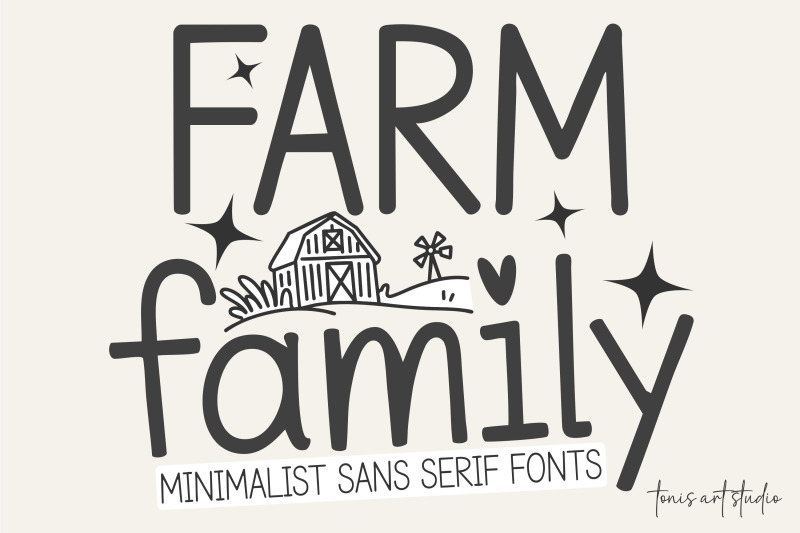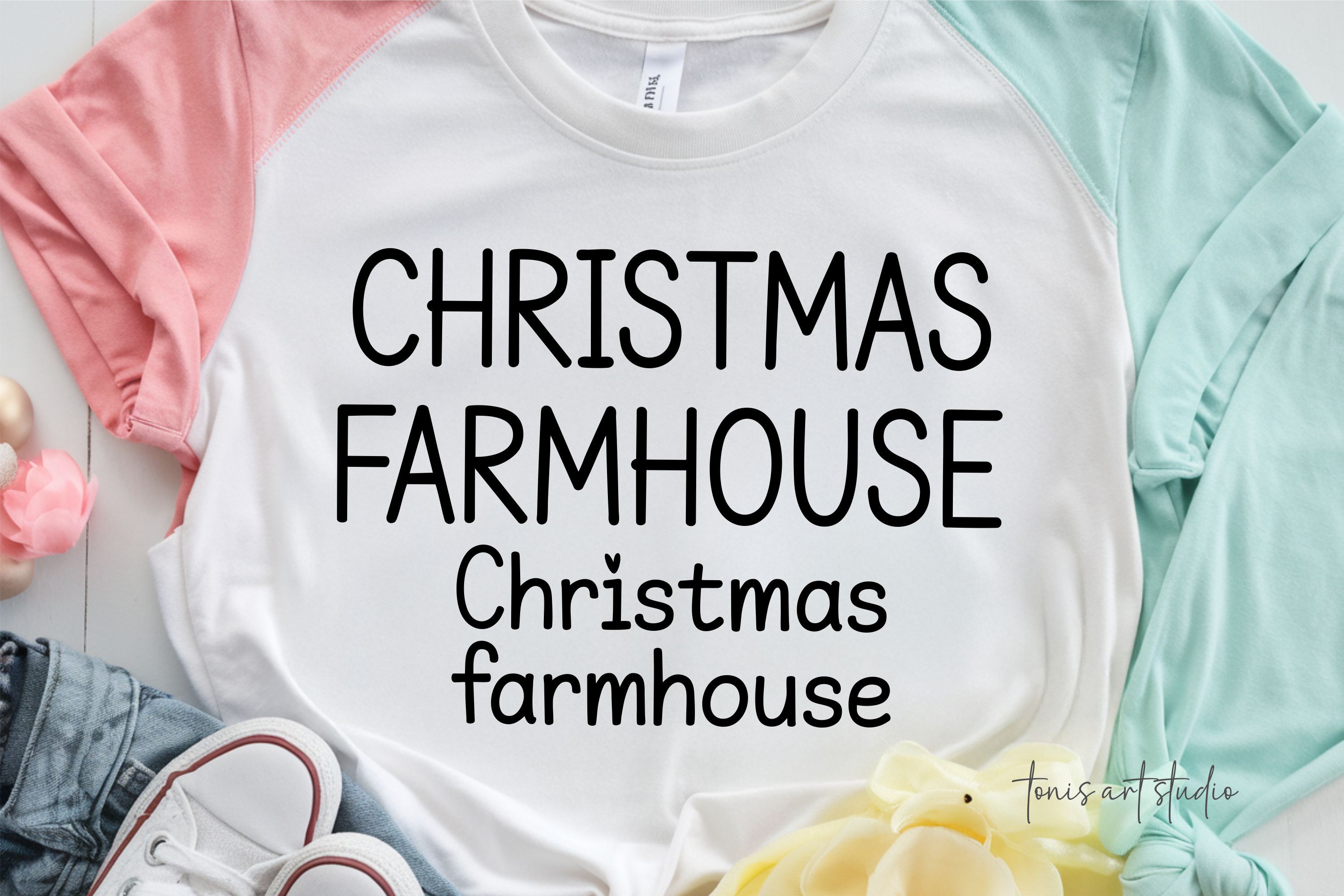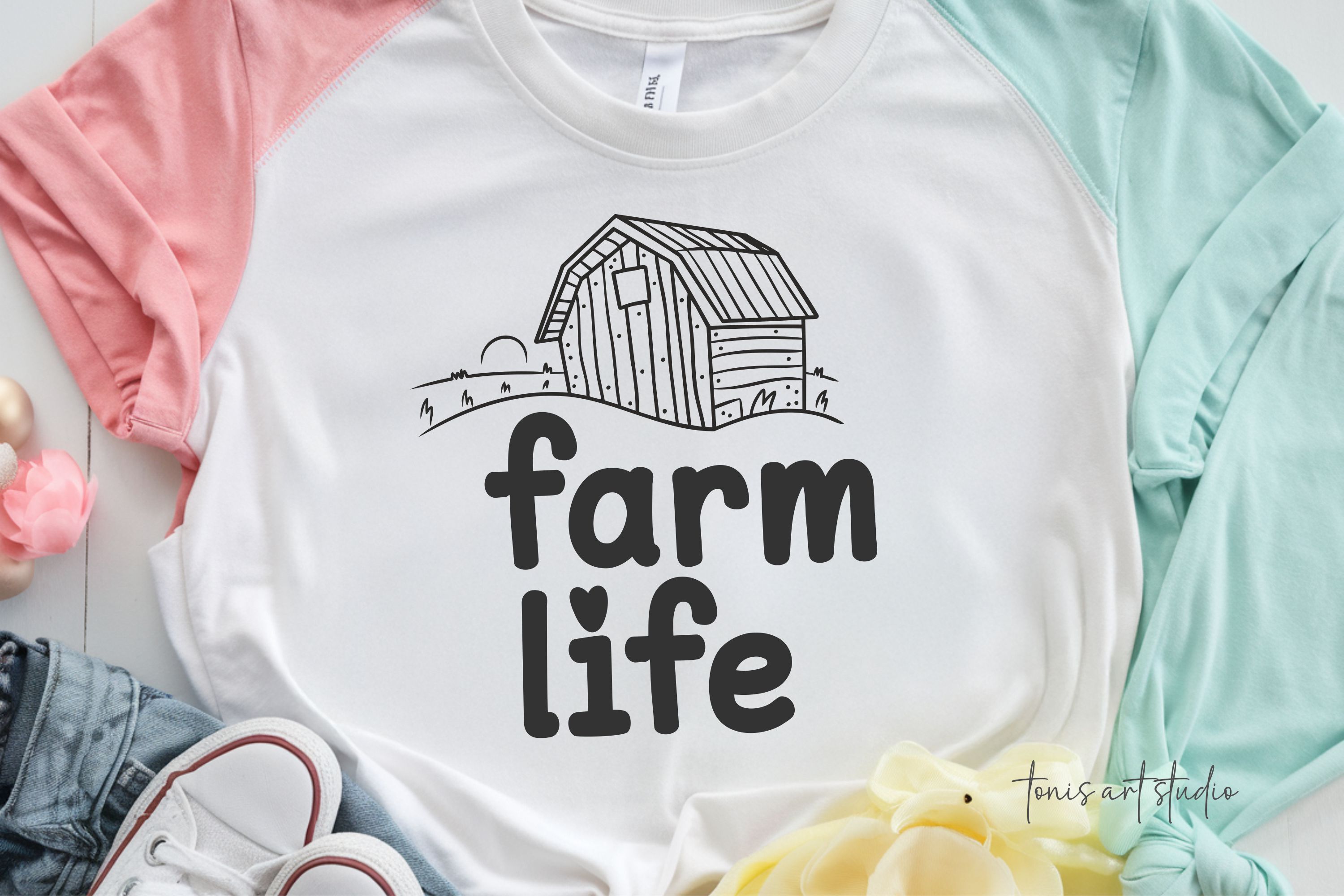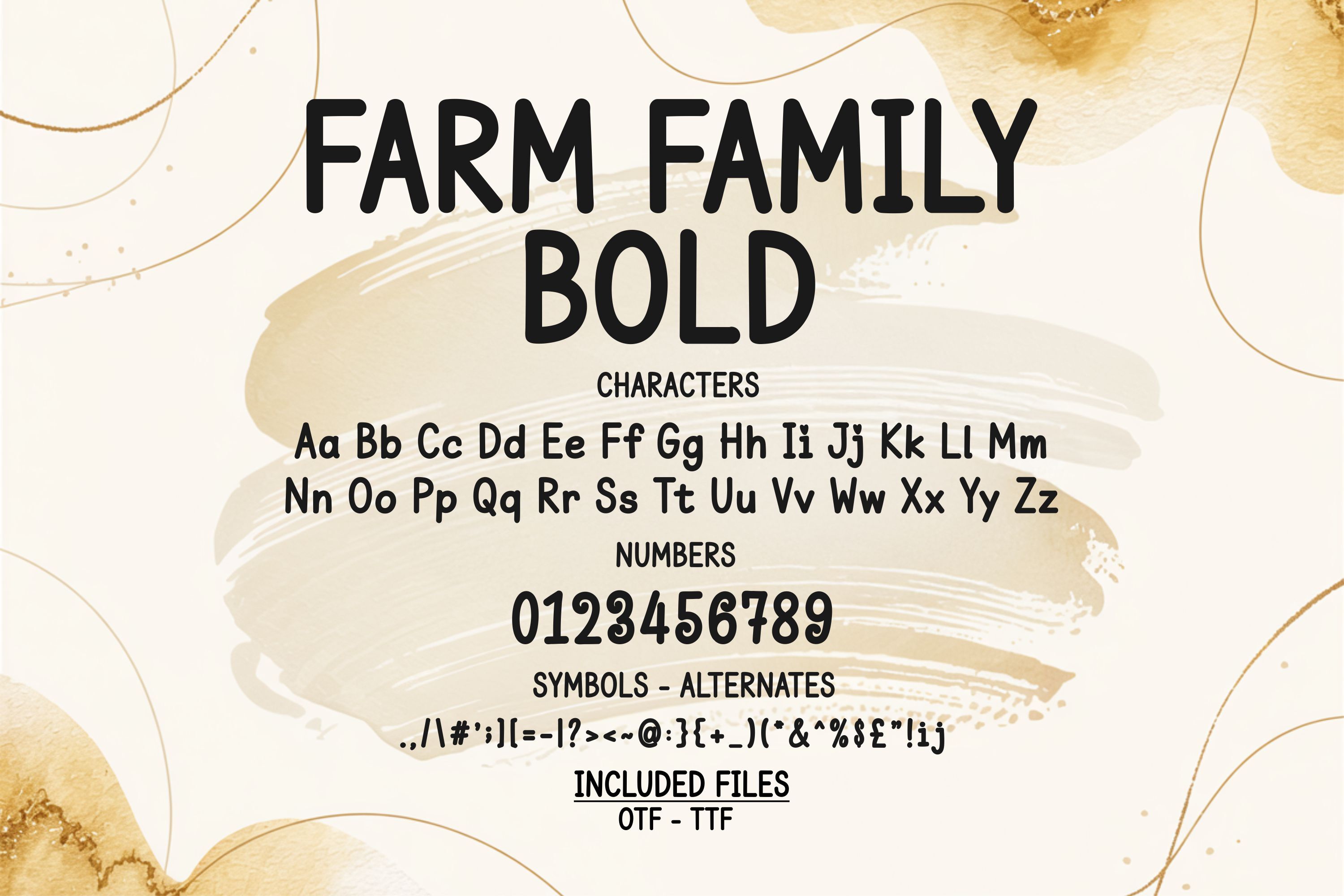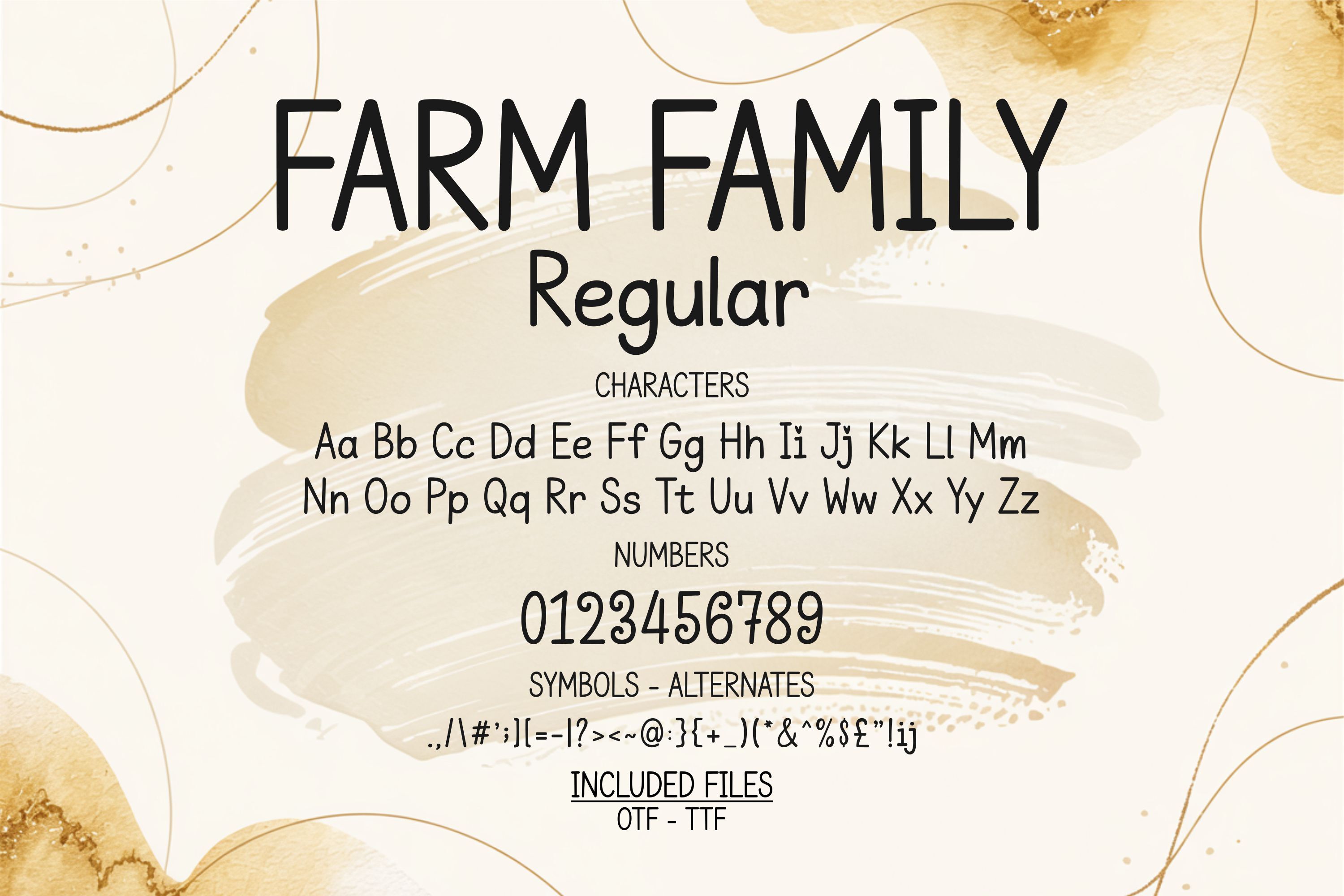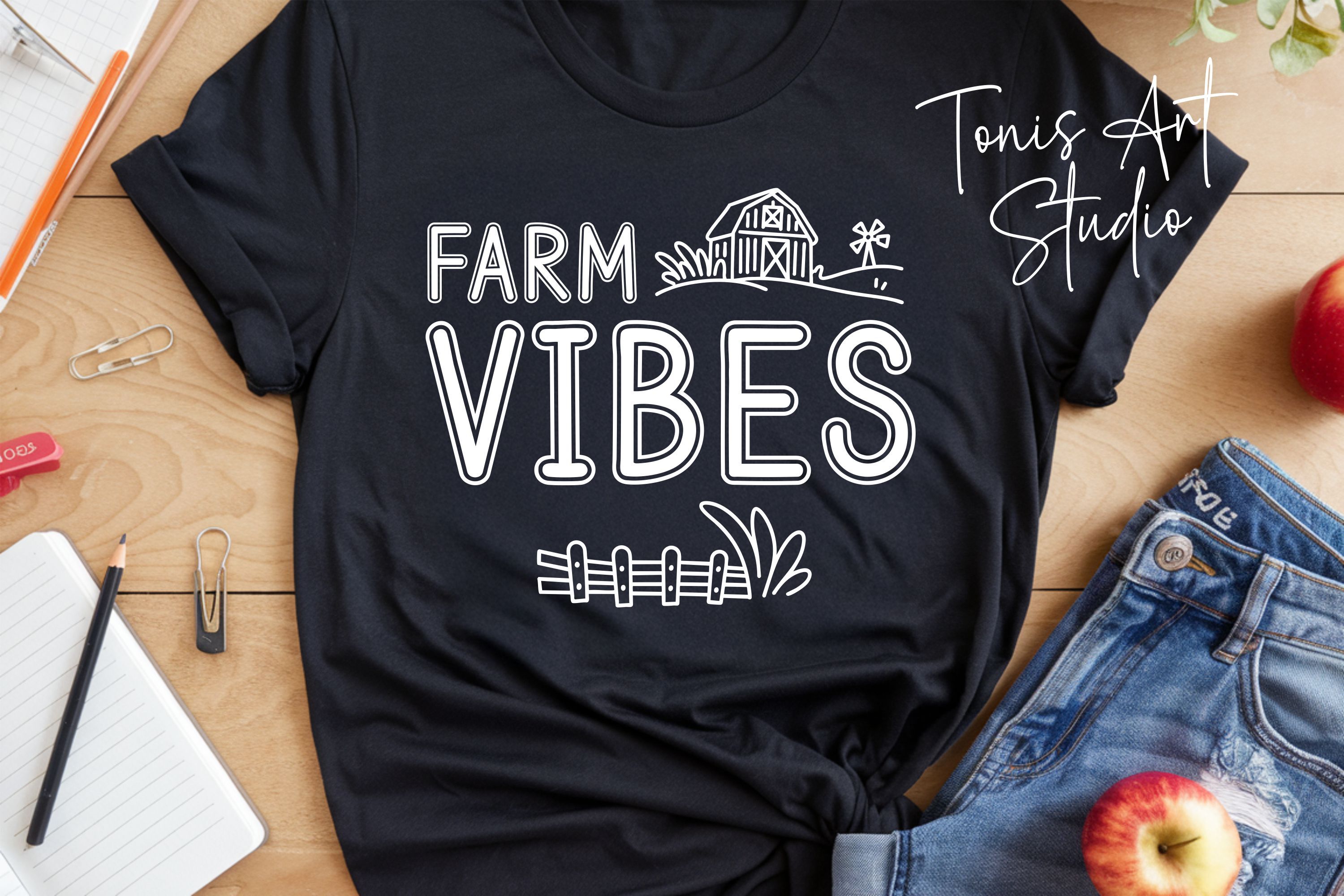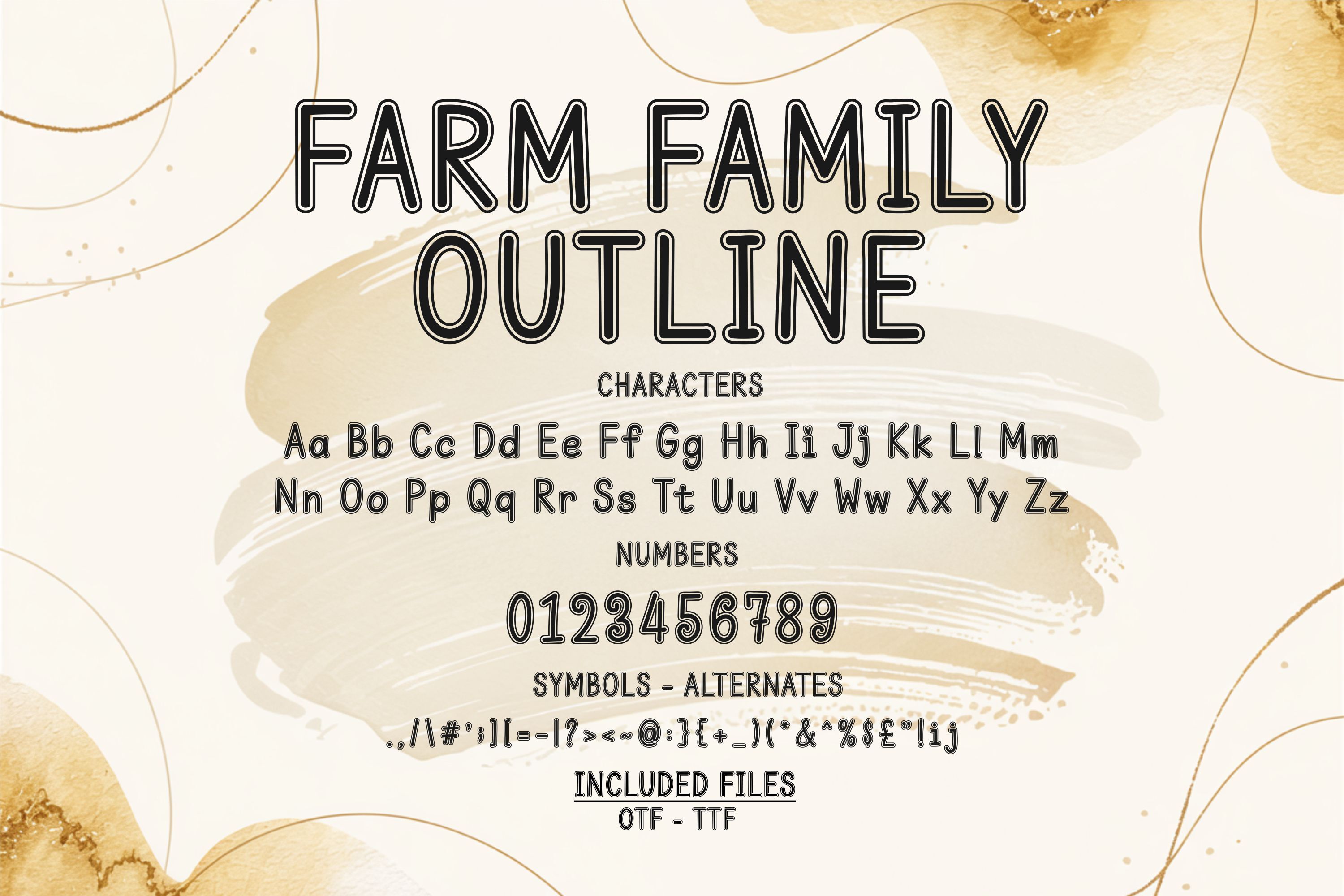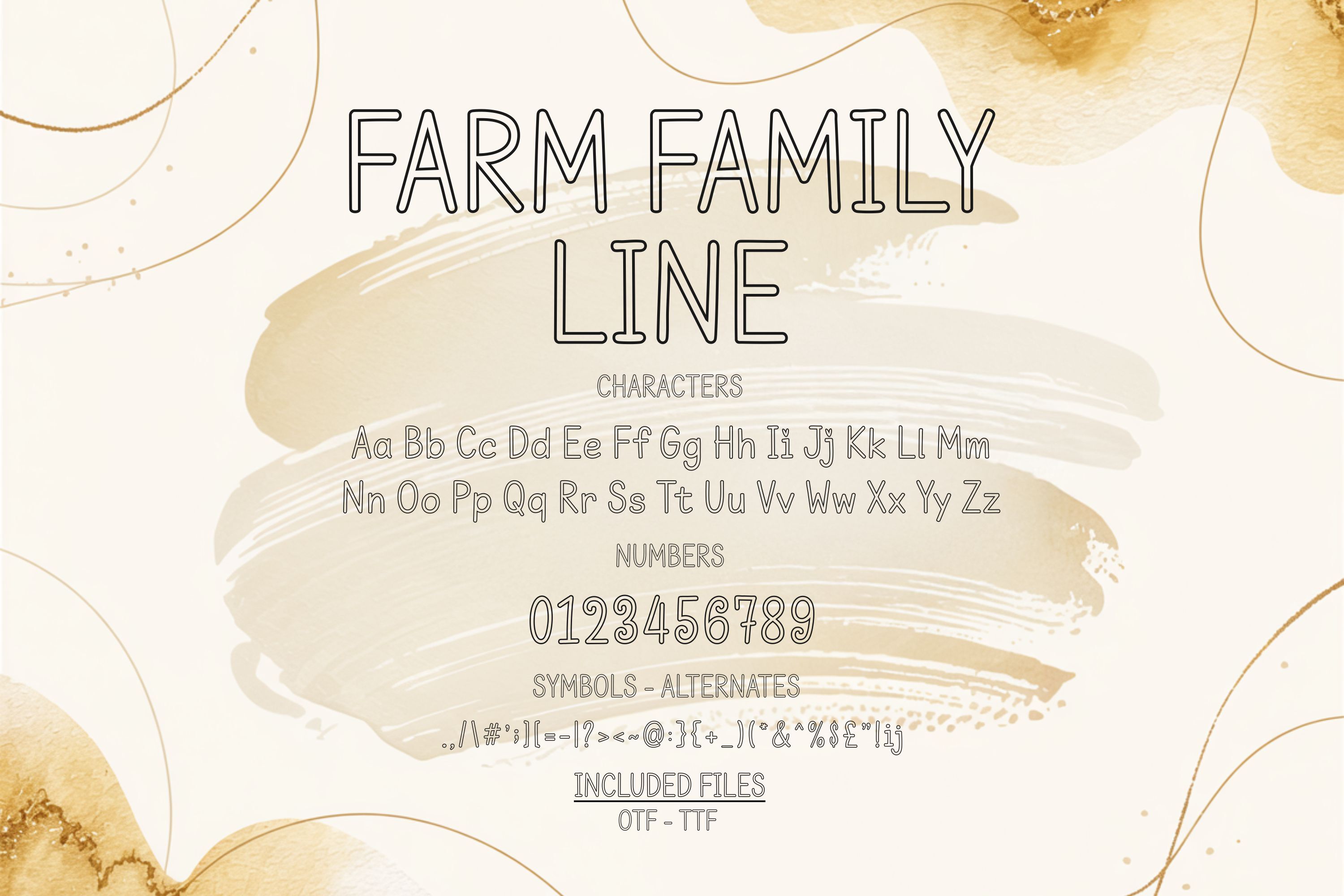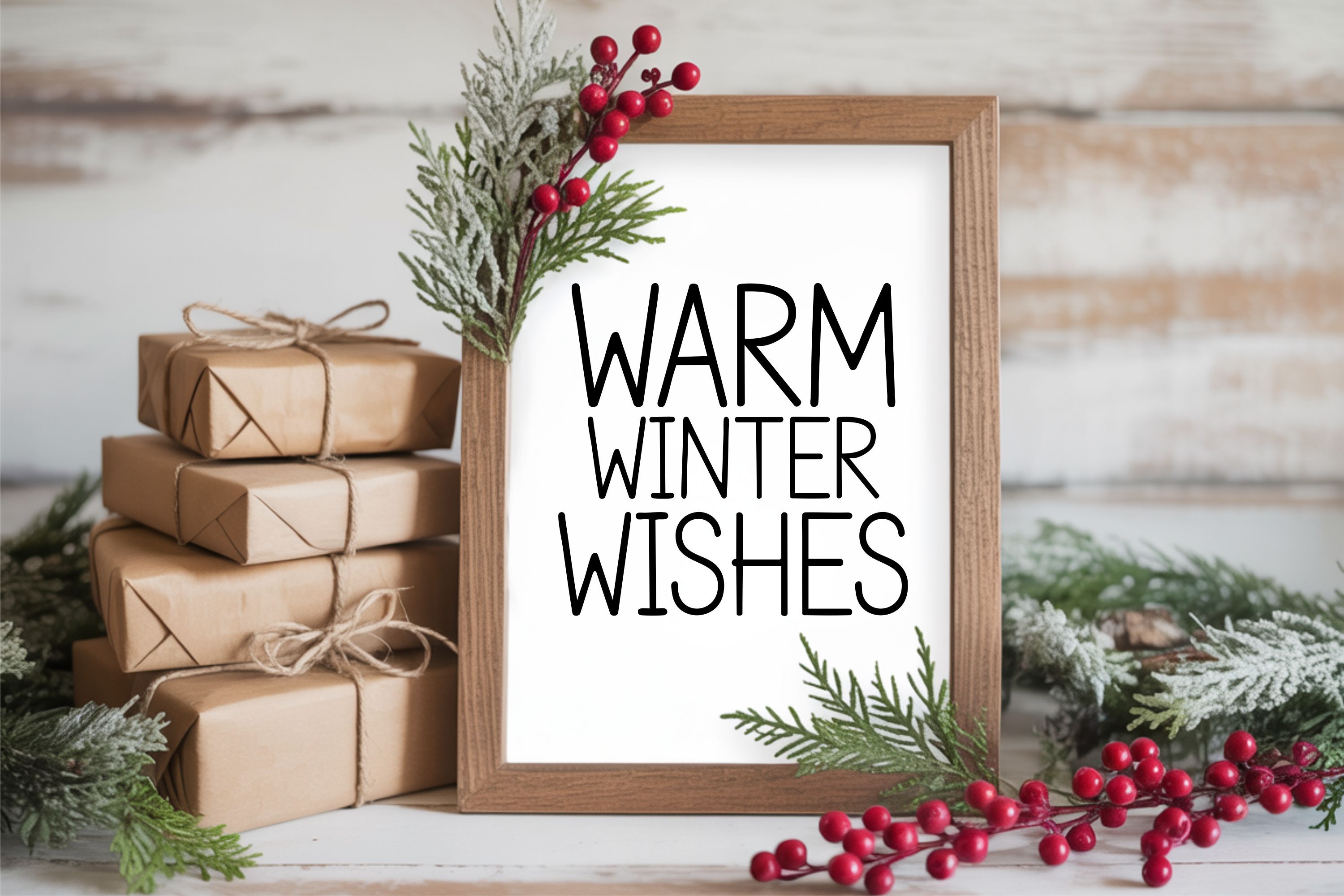
Farm Family Font | Christmas Farmhouse | Minimalist Sans Serif Fonts
The Farm Family Font is a minimalist, heartwarming typeface inspired by the charm of cozy farmhouse life. Designed to blend simplicity with warmth, this clean sans serif font family adds a rustic yet modern touch to all your creative projects. With 5 unique styles – Regular, Lite, Bold, Line, and Outline – it offers endless versatility for crafting, branding, and digital designs. A standout feature? The smooth, rounded strokes and friendly character design that make every word feel handmade and comforting, perfect for Christmas signs, farmhouse decor, family name projects, and home-inspired typography. Whether you’re working on T-shirts, mugs, wooden signs, greeting cards, or Cricut and Silhouette crafts, Farm Family delivers timeless charm and clarity.